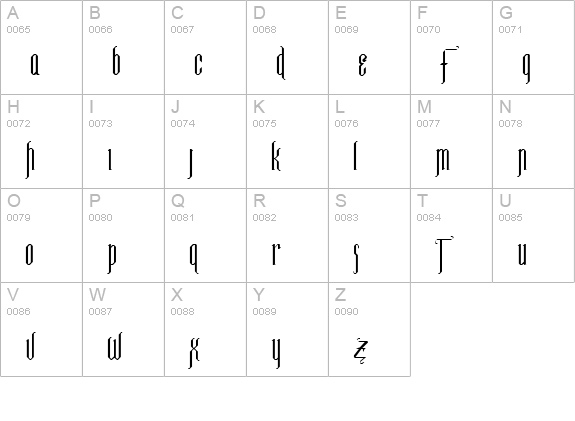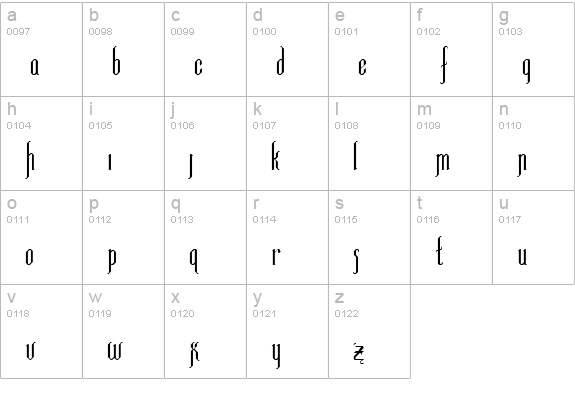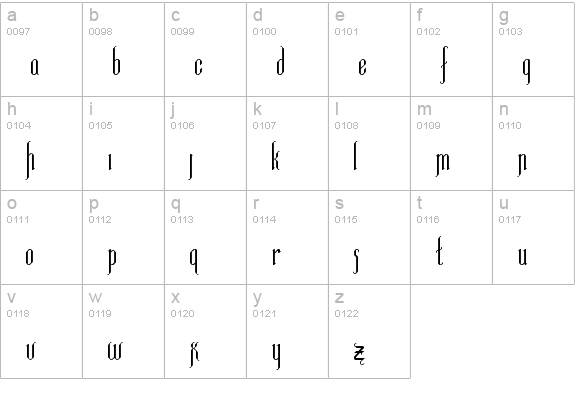
Luxembourg Regular Font Details
Luxembourg Regular is the standard, neutral variant in the Luxembourg typeface family \xE2\x80\x94 well suited to general body text, paragraphs, and standard typographic work.
Luxembourg Regular font is a timeless and elegant typeface that exudes sophistication and class. With its clean lines and balanced proportions, this font is perfect for a wide range of design projects, from elegant invitations to professional presentations. What makes Luxembourg Regular font even more appealing is that it is completely free to download at FontsMarket.com. This means that you can add a touch of luxury to your designs without breaking the bank. Whether you are a seasoned designer or just starting out, Luxembourg Regular font is a versatile and reliable choice that will elevate your projects to the next level.